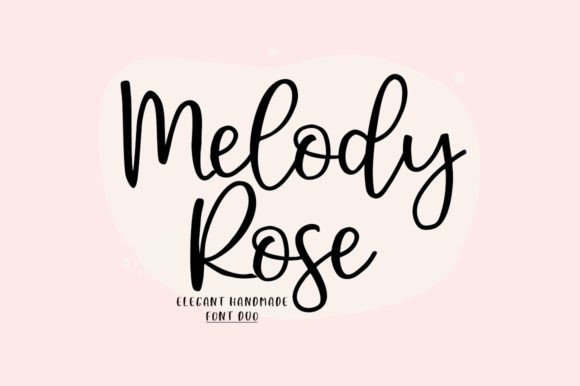
Behold the Melody Rose Duo Font - a symphony of elegance and charm that will transform your words into enchanting melodies. Step into a world of sophistication and allure, where every letter dances with grace and harmony.
This exquisite font family, meticulously designed by softcreative50, is a testament to the power of script and sans serif artistry. Melody Rose Duo Font is a captivating blend of classic elegance and modern flair, making it the perfect choice for a wide range of creative projects. Its intricate details and smooth curves will add a touch of refinement and personality to your designs, leaving a lasting impression on your audience.
With its versatility and adaptability, the Melody Rose Duo Font is a treasure trove of creative possibilities. Whether you're a graphic designer, web developer, or a lover of handwritten elegance, this font will unleash your imagination and elevate your projects to new heights. Picture your wedding invitations, greeting cards, social media posts, and branding materials adorned with the graceful strokes of Melody Rose Duo Font, captivating the hearts of recipients and leaving them in awe.
This font duo is more than just a collection of letters; it's an expression of art, a symphony of visual delight. Immerse yourself in the beauty of Melody Rose Duo Font and experience the joy of transforming ordinary words into extraordinary statements. Indulge in the elegance of the script font, with its delicate swashes and flowing lines, or embrace the clean and modern lines of the sans font, perfect for adding a touch of sophistication to your designs.
The Melody Rose Duo Font is not just a font; it's an invitation to embark on a creative journey, where your imagination knows no bounds. Let your creativity soar as you witness the magic of your words come to life, adorned with the beauty of Melody Rose Duo Font. Embrace the allure of this exquisite font family and let your designs bloom with elegance and charm.